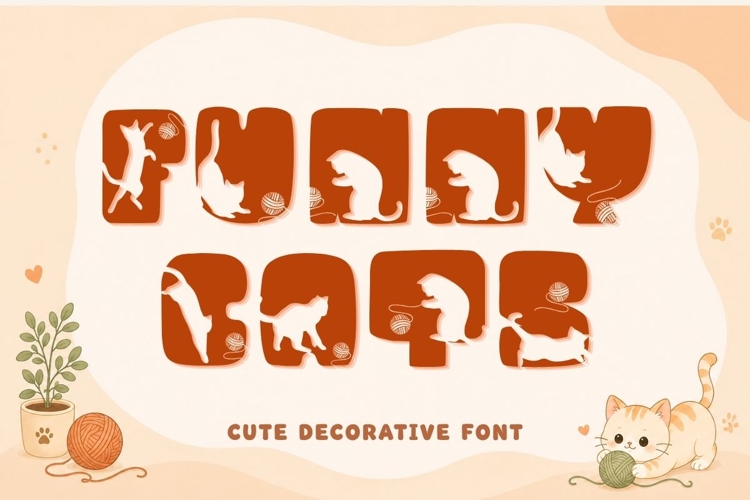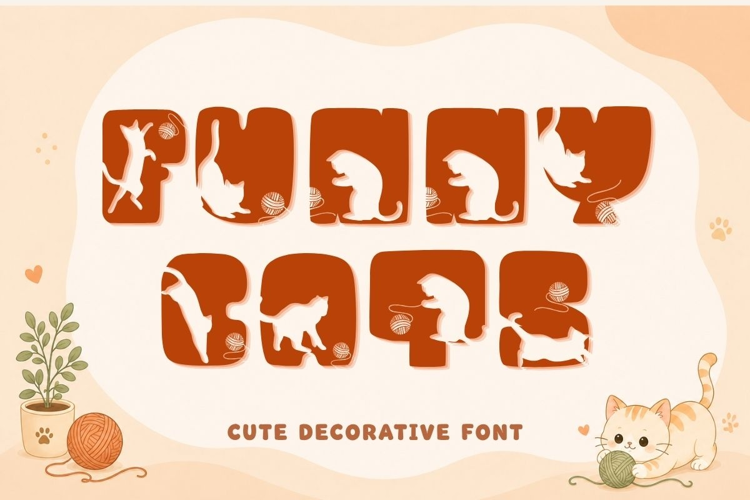
Funny Cats is a cute decorative display font featuring playful cat silhouettes and yarn illustrations inside every letter. Each character has a unique feline design, making this font perfect for cat lovers and pet-themed projects. The font includes uppercase, lowercase, and numbers, allowing you to create eye-catching titles, names, and short phrases with a fun handcrafted look.